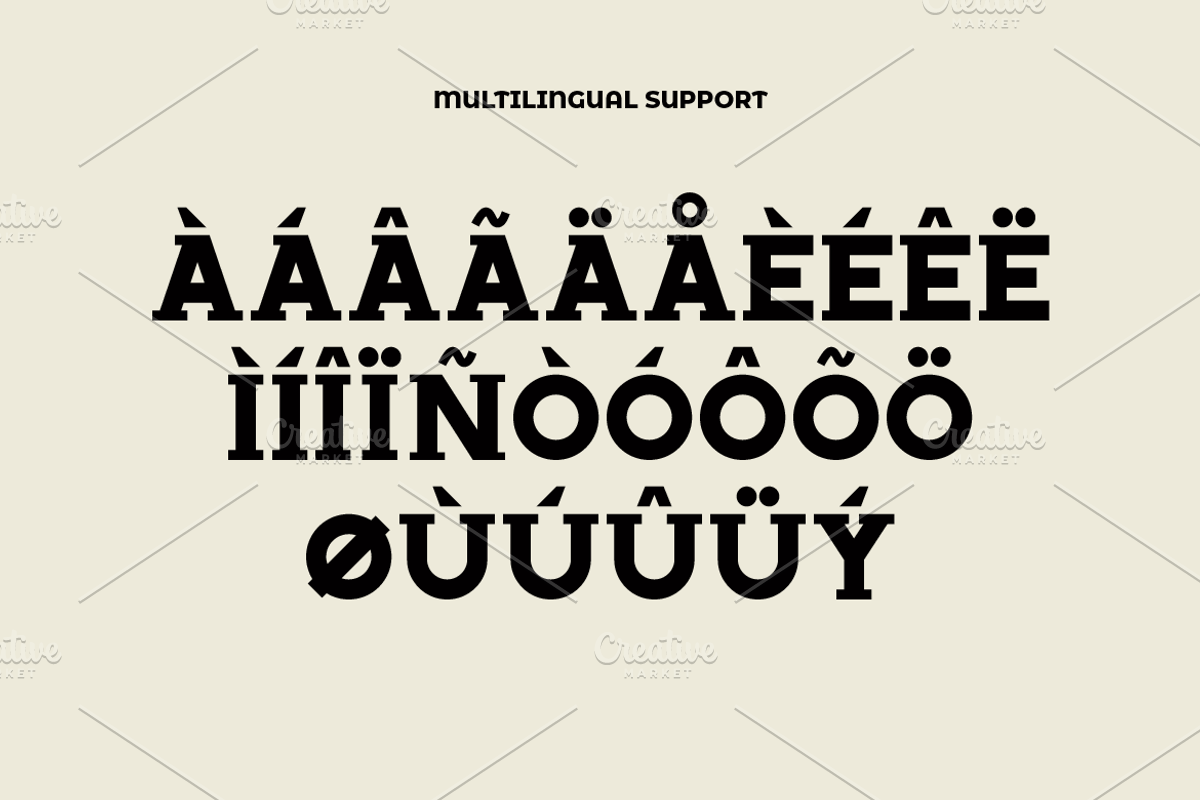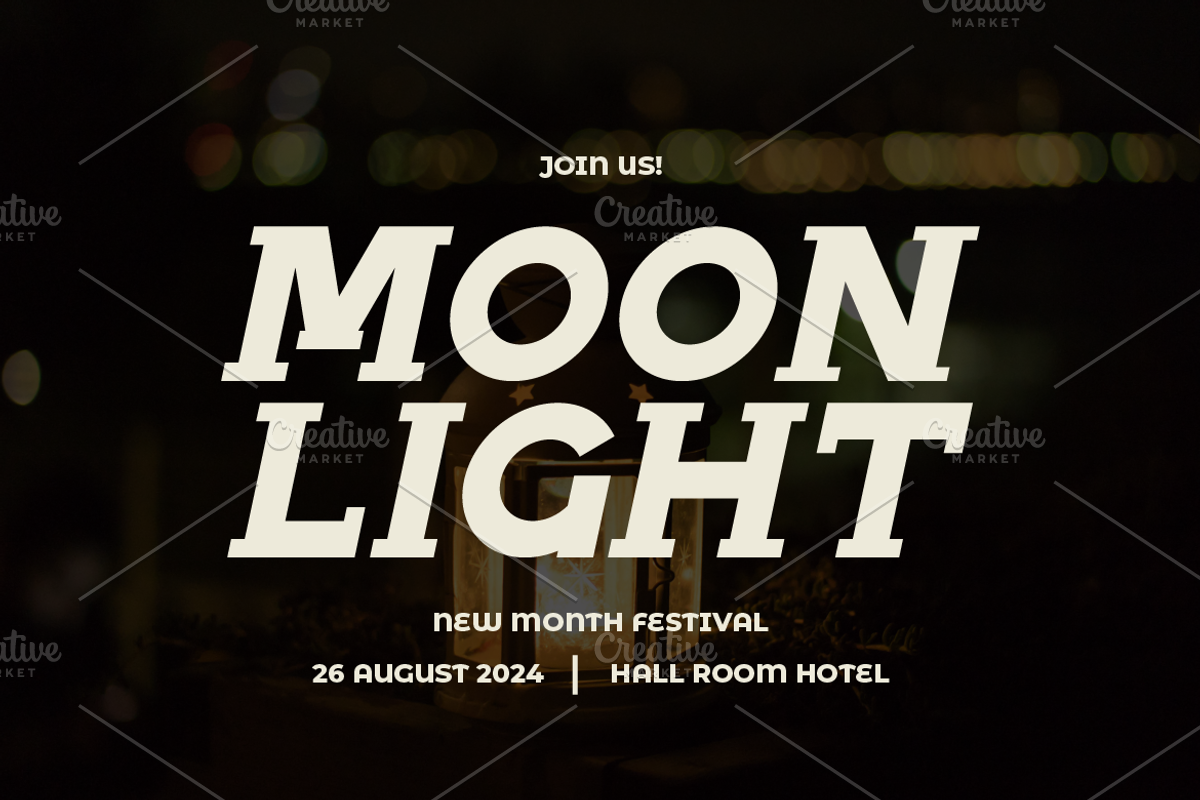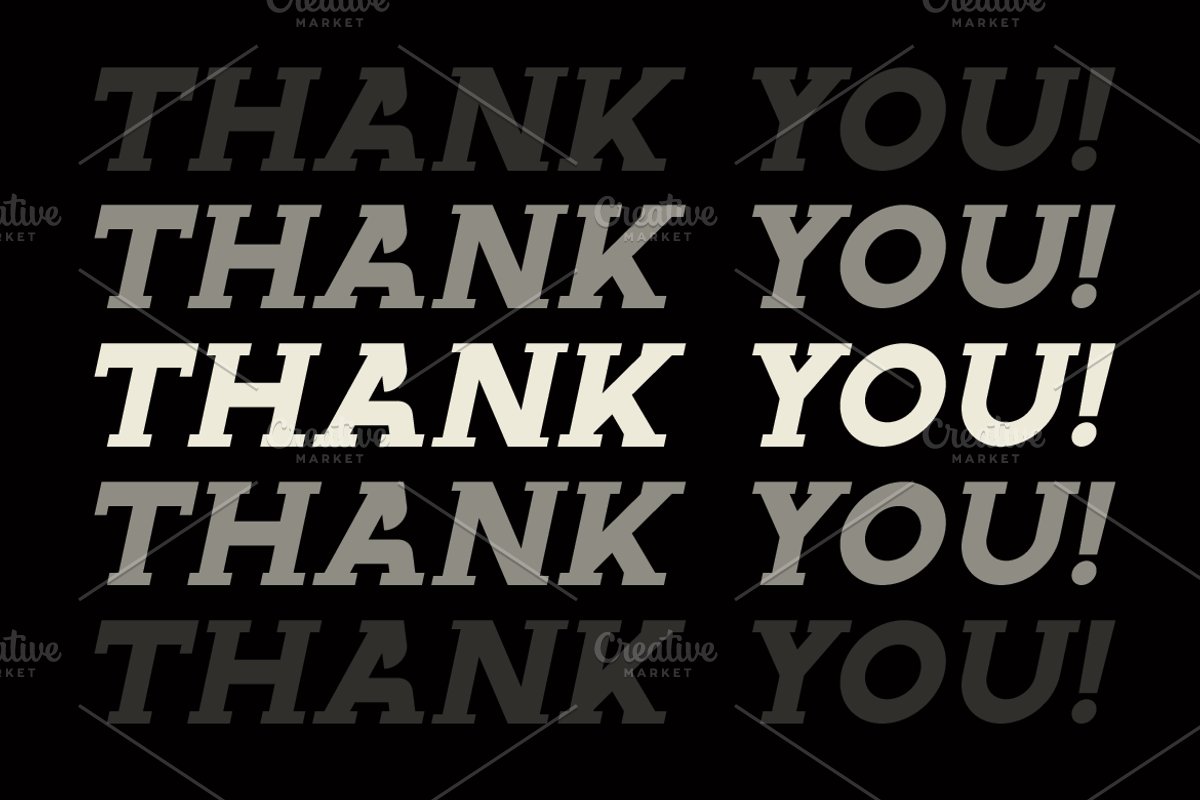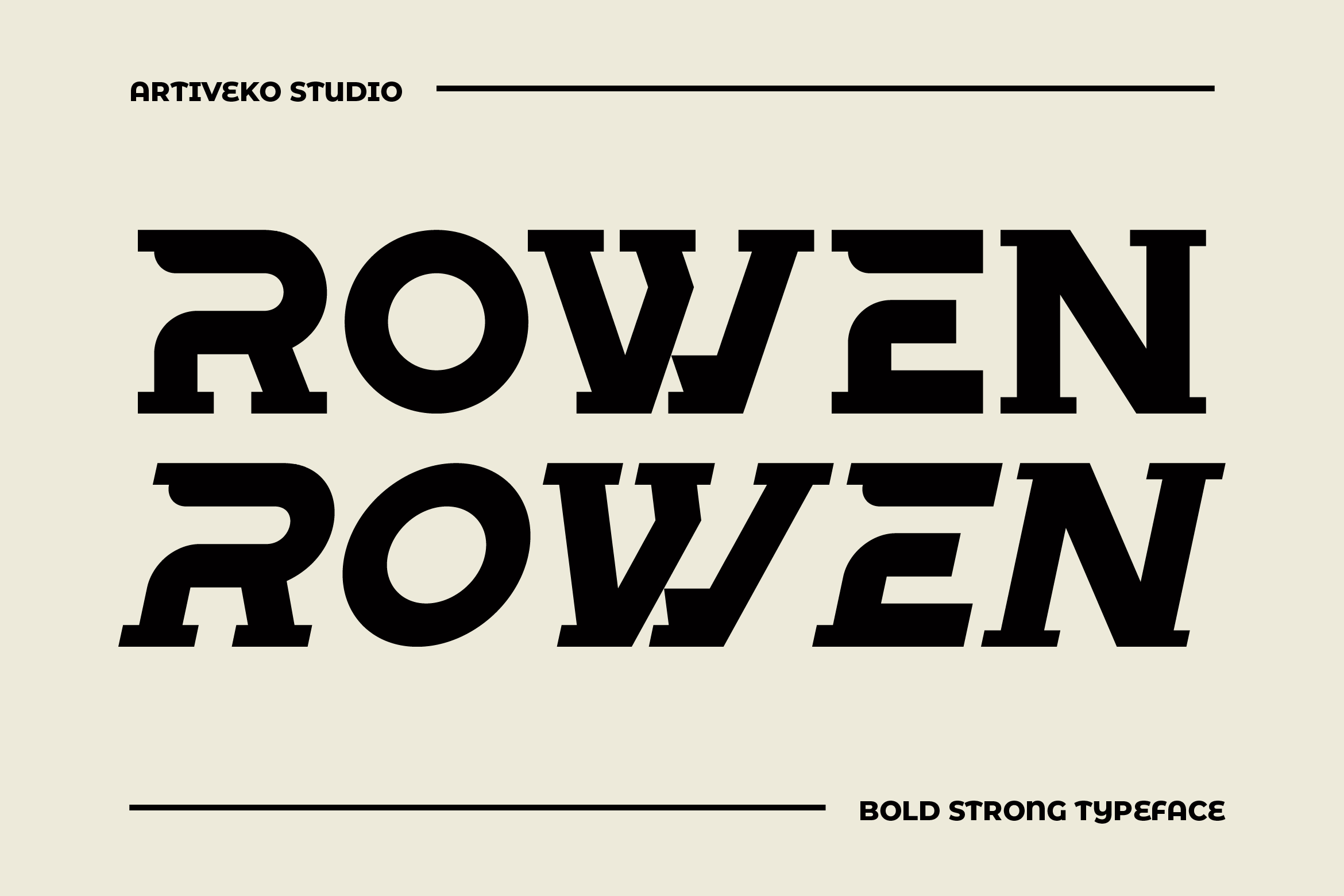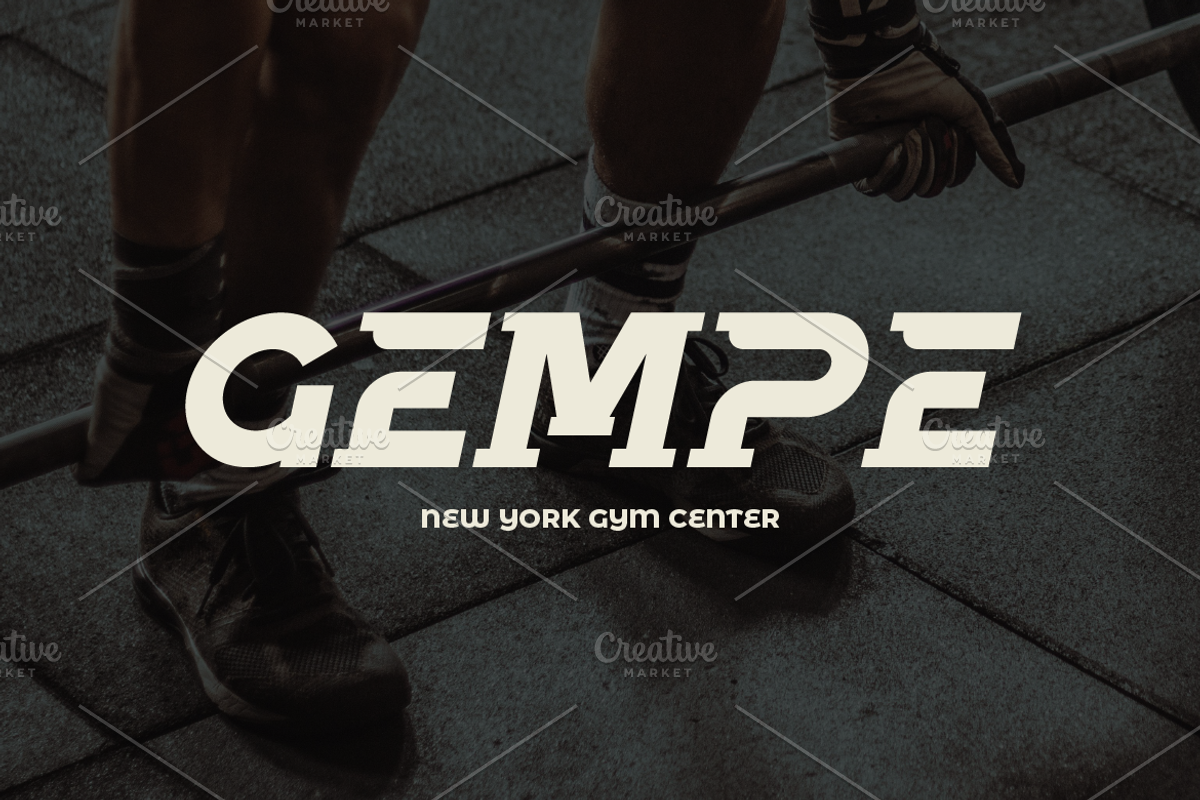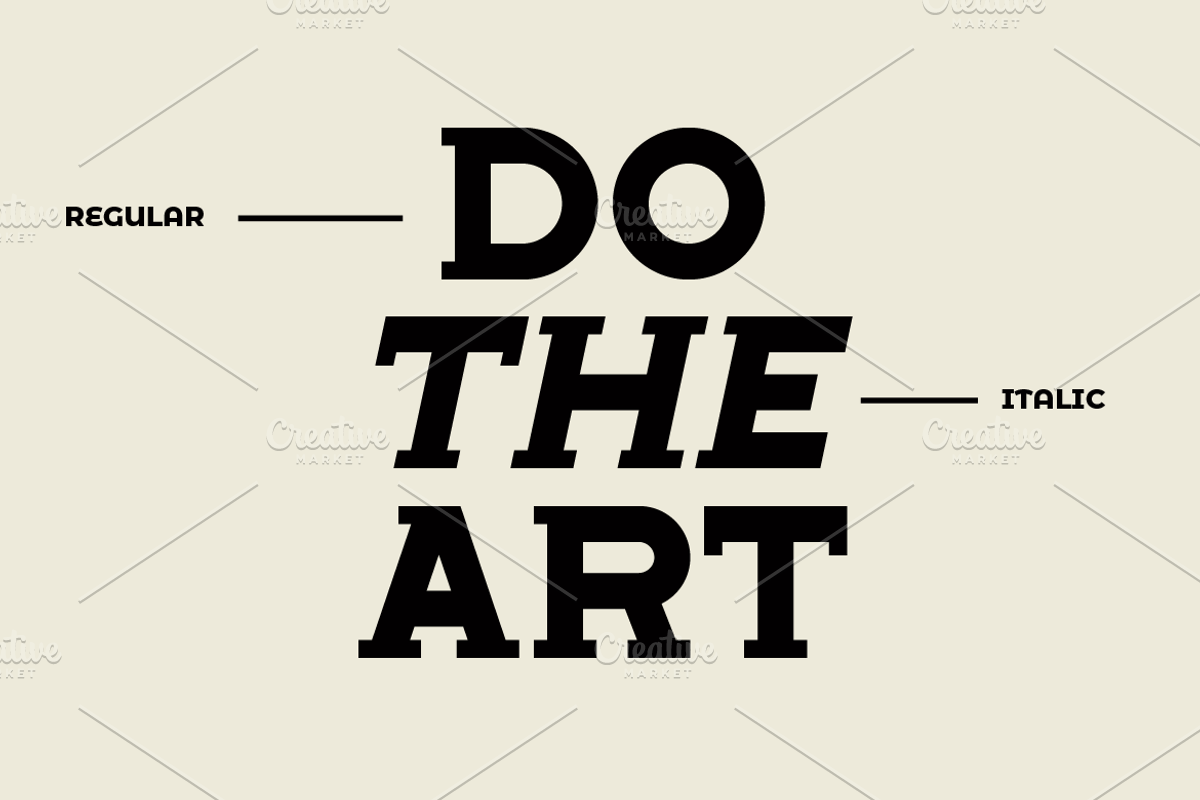
Rowen Bold Slab Font
Rowen is a bold slab serif font with a unique design, featuring distinctive variations in uppercase and lowercase characters. It offers multilingual support, making it versatile for various design needs. Created by Iwan Alwan, Rowen stands out with its robust and stylish appearance, perfect for headlines, logos, and branding projects that demand attention. Its strong, confident lines and creative character shapes ensure your message is conveyed with impact and flair.